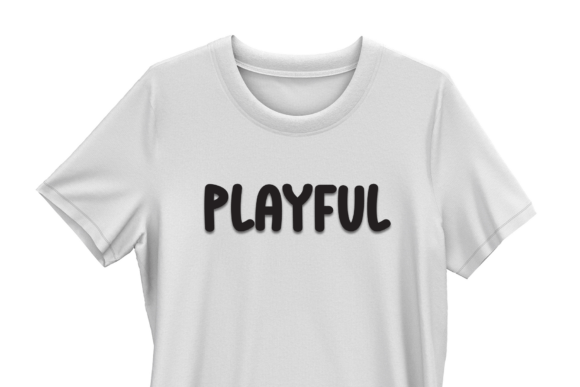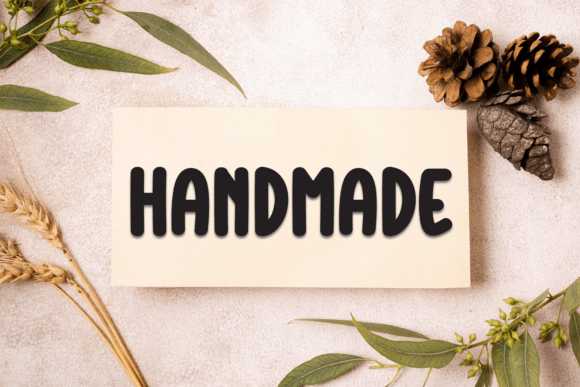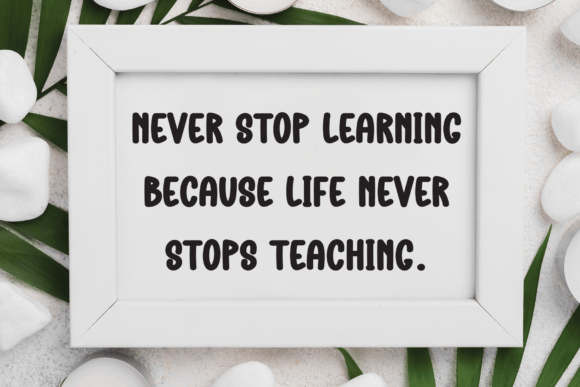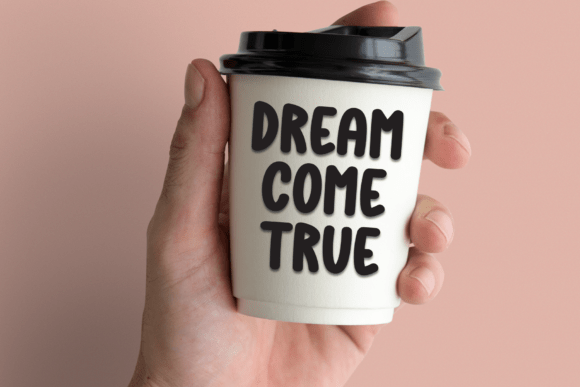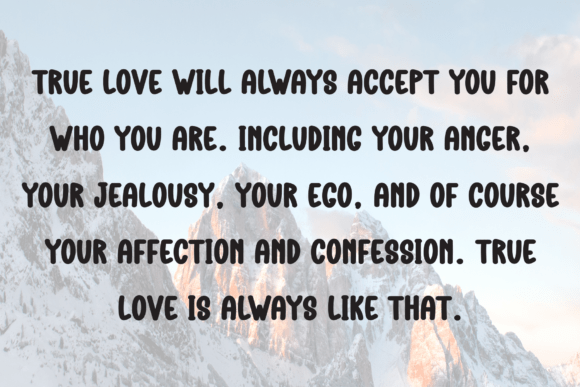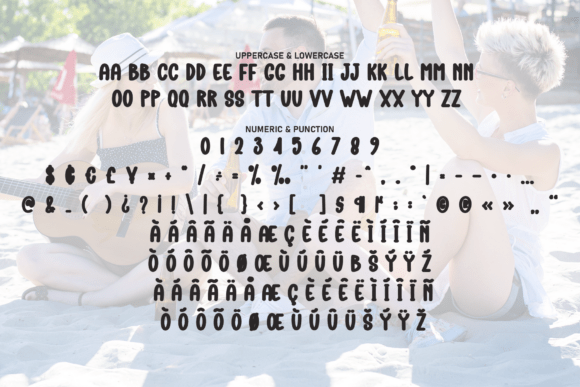
Introducing Beach Party Font: The Ultimate Summer Display Font
Are you looking for a font that captures the essence of summer fun and relaxation? Look no further than Beach Party Font, a neat and casual display font that’s perfect for creating eye-catching summer posters, event flyers, and playful branding. With its clean lines and easygoing vibe, Beach Party Font is sure to bring a breezy, laid-back feel to any creative project or message.
What Makes Beach Party Font So Special?
Beach Party Font is a unique and refreshing typeface that’s designed to evoke the carefree spirit of summer. Its clean and simple lines make it easy to read and understand, while its casual and playful vibe adds a touch of whimsy and fun to any design. Whether you’re creating a poster for a summer concert, a flyer for a beach party, or a logo for a surf brand, Beach Party Font is the perfect choice.
Key Features of Beach Party Font
- Clean and Simple Lines: Beach Party Font features clean and simple lines that make it easy to read and understand.
- Easygoing Vibe: The font has an easygoing and casual vibe that’s perfect for summer designs.
- Playful and Cheerful: Beach Party Font is a playful and cheerful typeface that’s sure to add a touch of fun to any design.
- Perfect for Summer Designs: The font is specifically designed for summer designs, making it perfect for posters, flyers, and branding.
Uses for Beach Party Font
Beach Party Font is a versatile typeface that can be used for a wide range of design projects, including:
- Summer Posters: Create eye-catching posters for summer concerts, festivals, and events.
- Event Flyers: Design fun and playful flyers for beach parties, BBQs, and other summer events.
- Playful Branding: Use Beach Party Font to create playful and memorable branding for surf brands, beachwear companies, and other summer-related businesses.
- Social Media Graphics: Create engaging social media graphics that capture the essence of summer fun.
Tips for Using Beach Party Font
Here are some tips for using Beach Party Font in your designs:
- Keep it Simple: Beach Party Font is a simple and clean typeface, so keep your design simple and easy to understand.
- Use Bright Colors: Summer is all about bright and bold colors, so use them to make your design pop.
- Experiment with Ligatures: Beach Party Font features ligatures that can add a touch of whimsy and fun to your design.
- Pair it with Other Fonts: Beach Party Font can be paired with other fonts to create a unique and interesting design.
Beach Party Font is a unique and refreshing typeface that’s perfect for summer designs. With its clean lines, easygoing vibe, and playful charm, it’s sure to bring a breezy, laid-back feel to any creative project or message. Whether you’re a designer, craft, or simply someone who loves summer, Beach Party Font is a must-have font for your design arsenal.